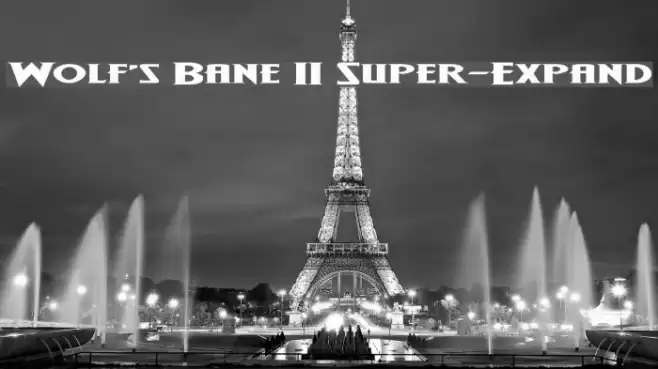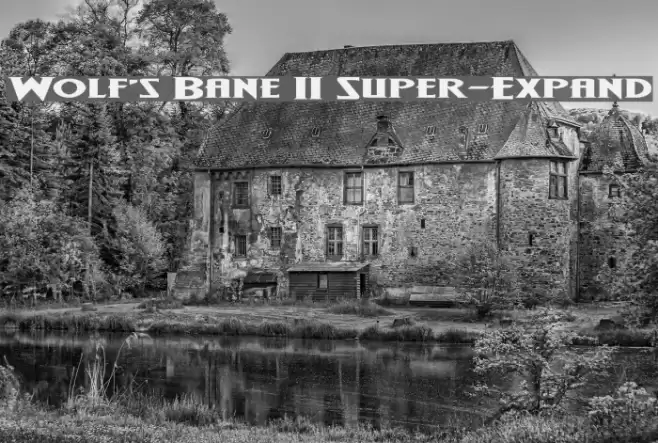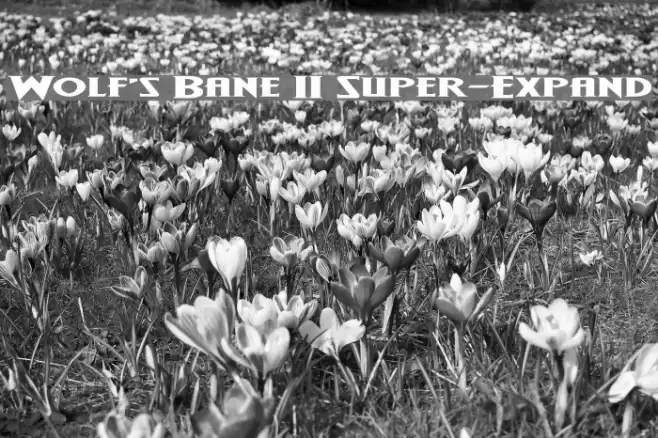
Wolf's Bane II Super-Expand Font
Wolf's Bane II Super-Expand Description
This font features a bold and striking design with sharp, angular edges and a distinct geometric style. The uppercase letters are characterized by their wide stance and strong presence, making them ideal for attention-grabbing headlines. The lowercase letters maintain the boldness, with unique cuts and angles that add a modern twist. Numbers and special characters follow the same design principles, ensuring consistency across all glyphs. The overall appearance is both futuristic and slightly aggressive, suitable for projects that require a powerful visual impact.
A bold, angular font with a geometric and futuristic style from Retro fonts.